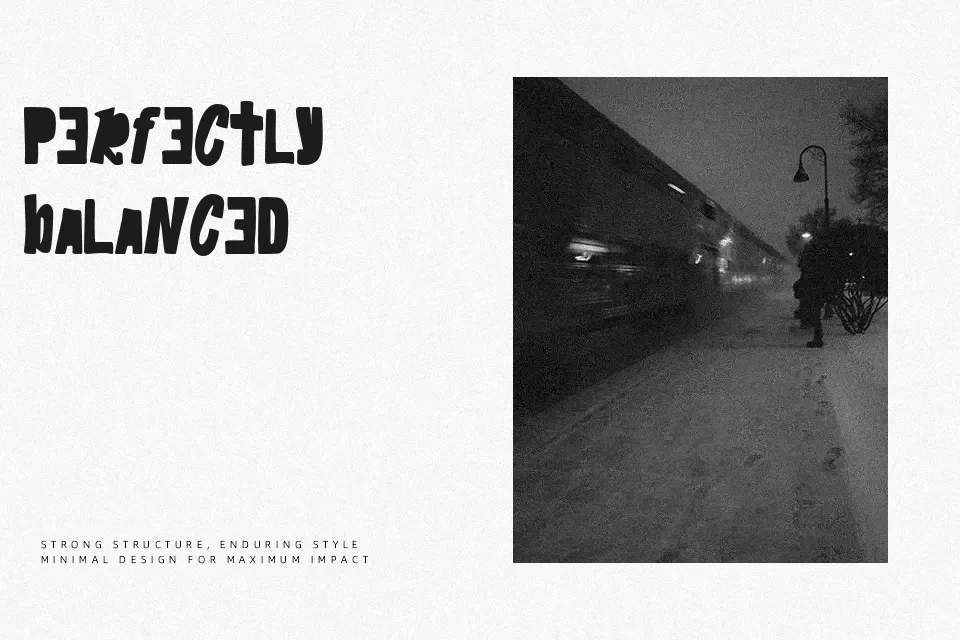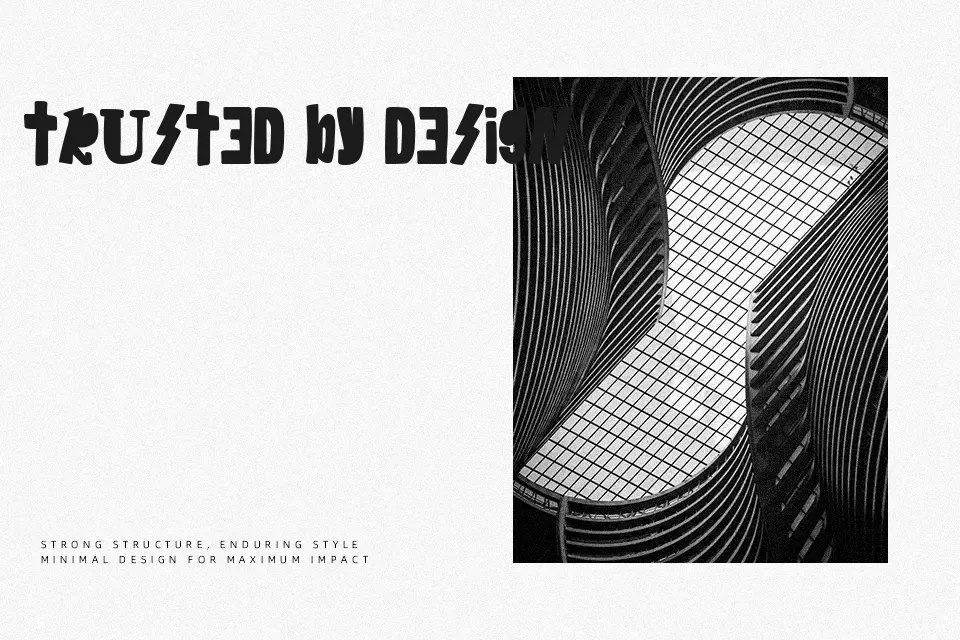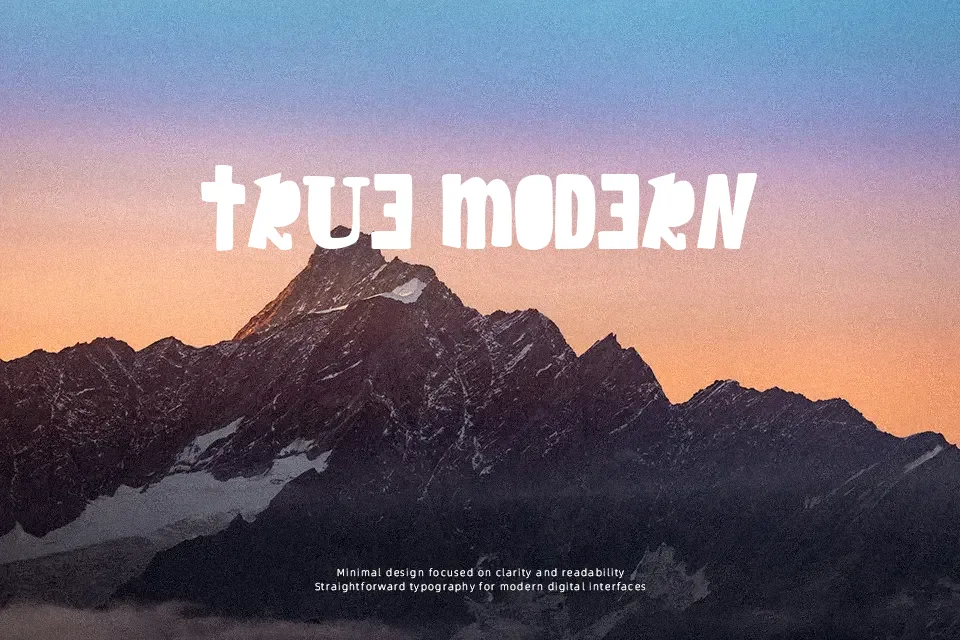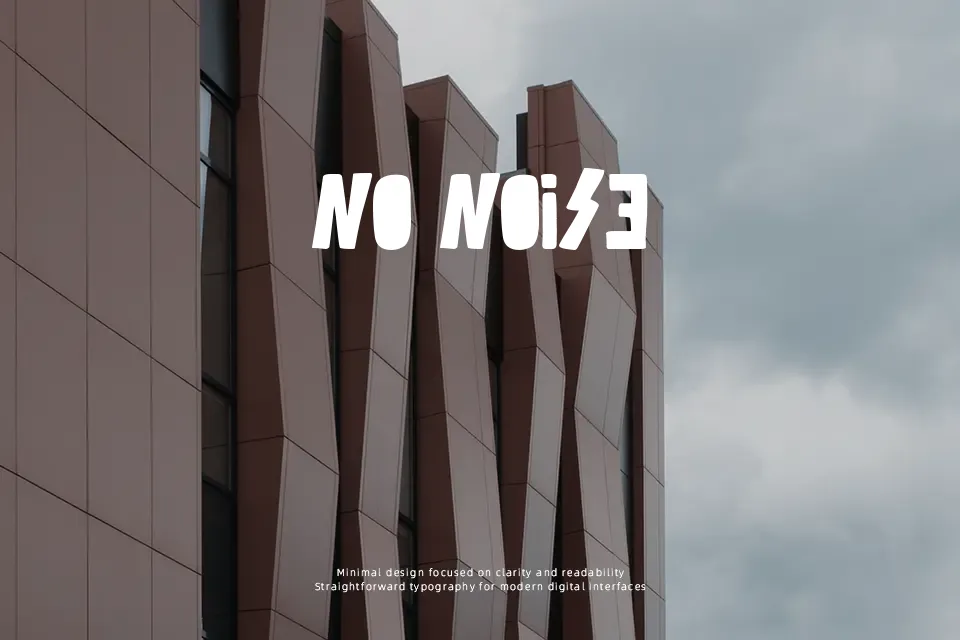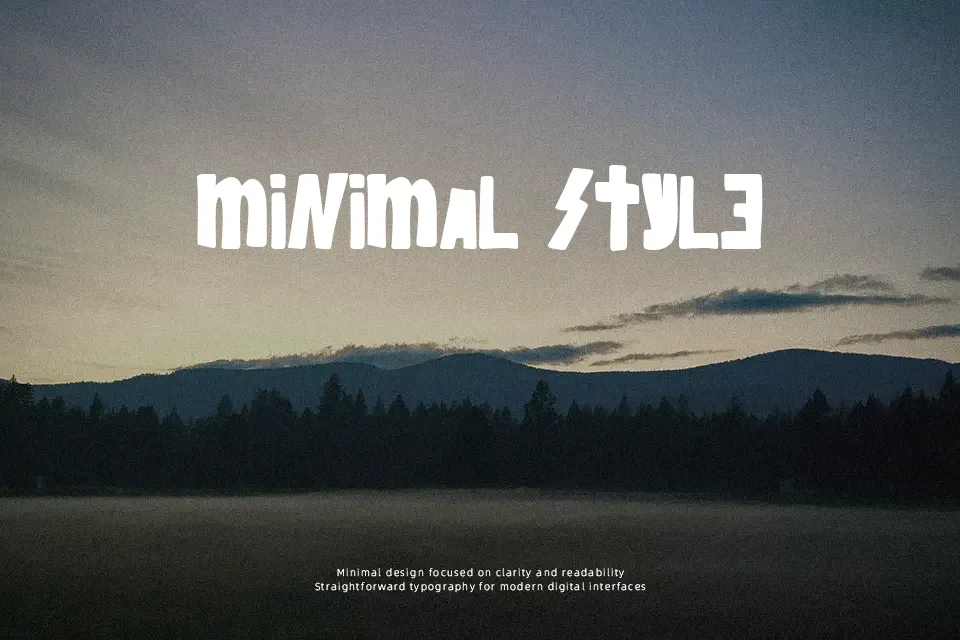
Rage & Paella Font
Rage & Paella Font immediately establishes a chaotic, punk-driven visual rhythm through its highly distorted and irregular letterforms. The characters feature uneven spacing, rough strokes, and varied positioning, with some letters appearing inverted or aggressively tilted to maximize its rebellious aesthetic. This bold structural unpredictability makes the typeface exceptionally effective for large-scale applications like alternative music festival posters, edgy streetwear packaging, and grunge-inspired event headlines. However, the heavy distortion and inconsistent character heights create significant readability challenges at smaller sizes. The jagged edges and varying proportions reduce reading comfort, making this decorative design entirely unsuitable for continuous paragraph reading, dense editorial layouts, or clean corporate branding where legibility is the primary concern.
punk music posters
edgy streetwear packaging
grunge festival headlines
rebellious brand logos
continuous paragraph reading
corporate business reports
Perfect for headline, music, and packaging, with a bold and condensed style.